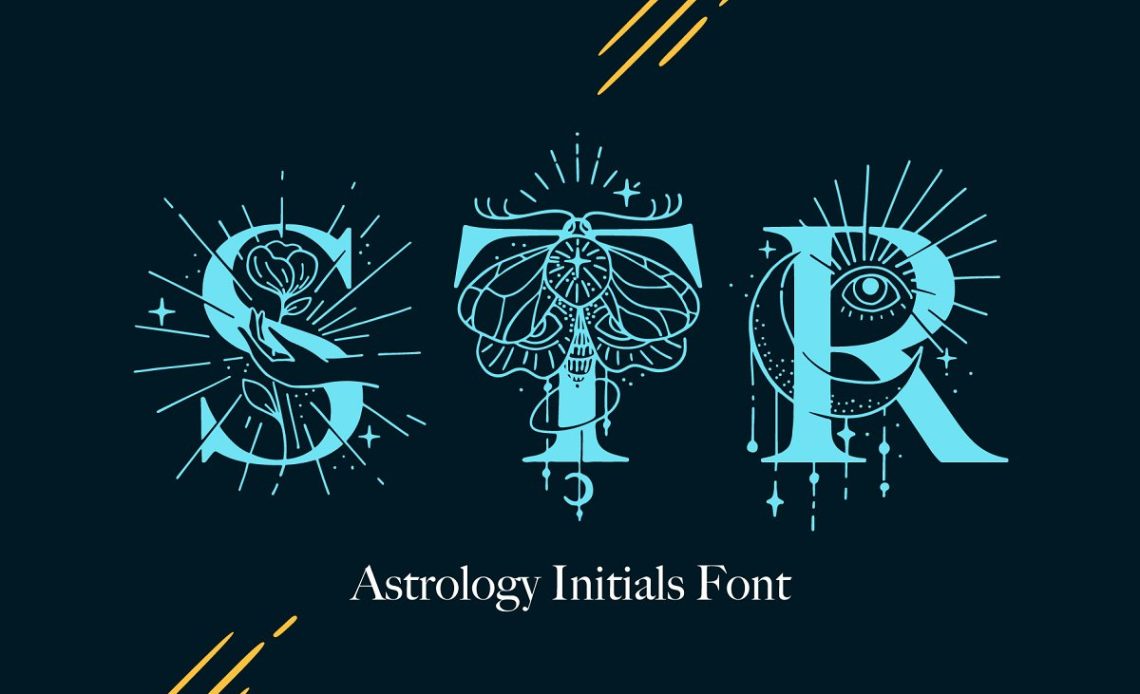
Introducing Astrology Initials Font - the perfect serif font for anyone looking to add a mystical touch to their design projects. Whether you need to design a new mystical logo, create tarot cards, or craft astrological posters, this font is the ideal choice for you. Created by the talented Roman Korolev, this font family is not just any other ordinary font; it's a work of art.
Astrology Initials Font is meticulously hand-drawn, with each monogram designed to incorporate space and spirit elements, making it stand out from the rest. This font family is designed to captivate the attention of anyone who lays their eyes on it, with its unique style and mystical appeal.
The versatility of Astrology Initials Font makes it a valuable addition to any designer's toolkit. It's perfect for creating vintage-style headlines, adding a mystical touch to your branding, or designing a unique set of tarot cards. With its rich history and unique appeal, this font is sure to elevate the overall aesthetic of your design project.
In conclusion, if you're looking for a font that can help you create captivating, mystical designs, then look no further than Astrology Initials Font. Contact us at  to request any additional characters you may need. Give this font a try, and you won't be disappointed.